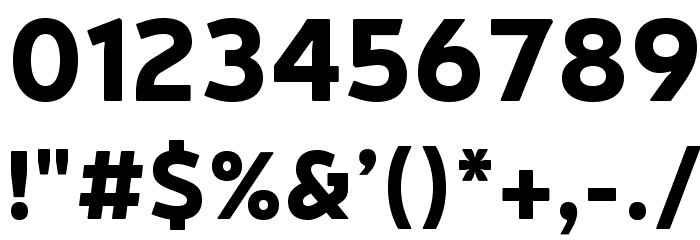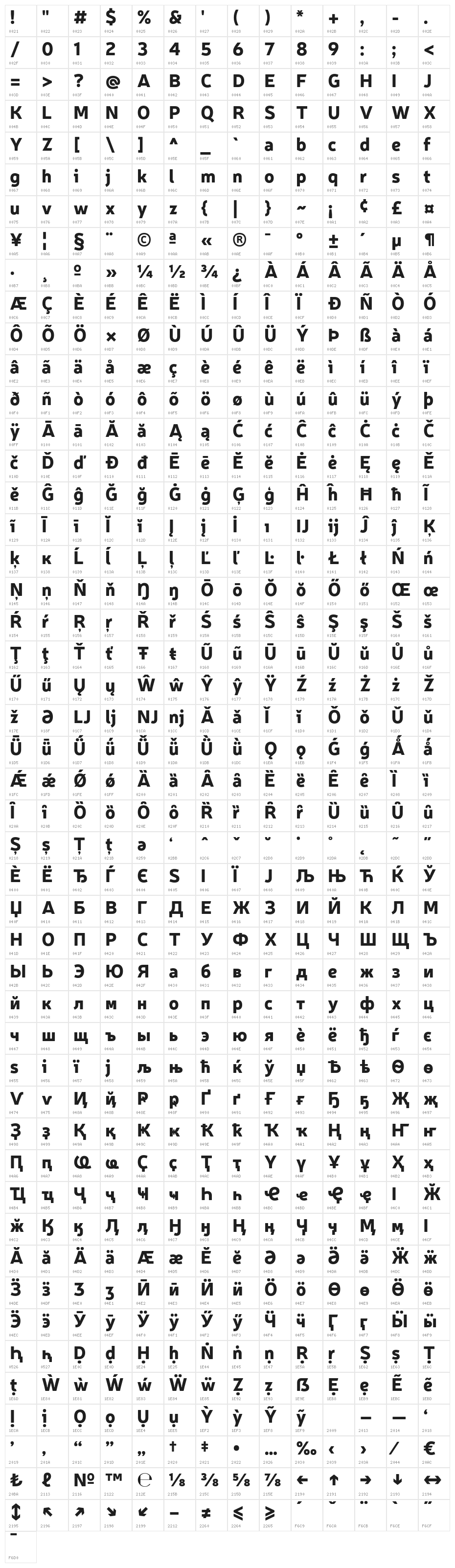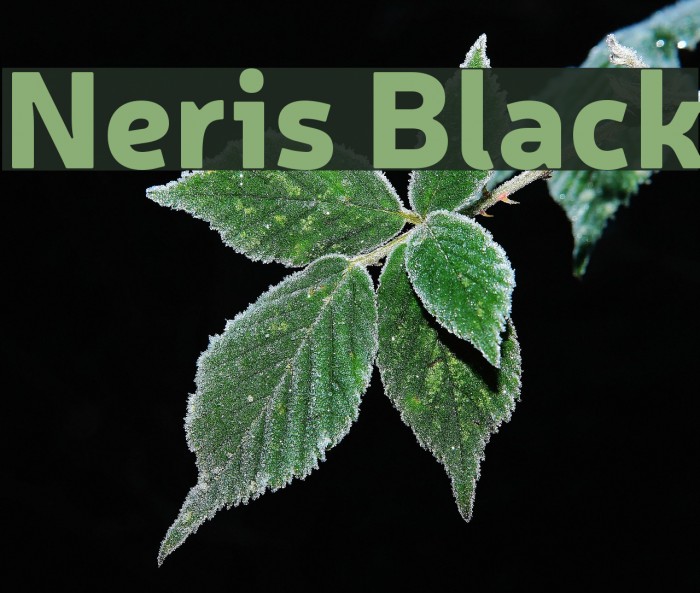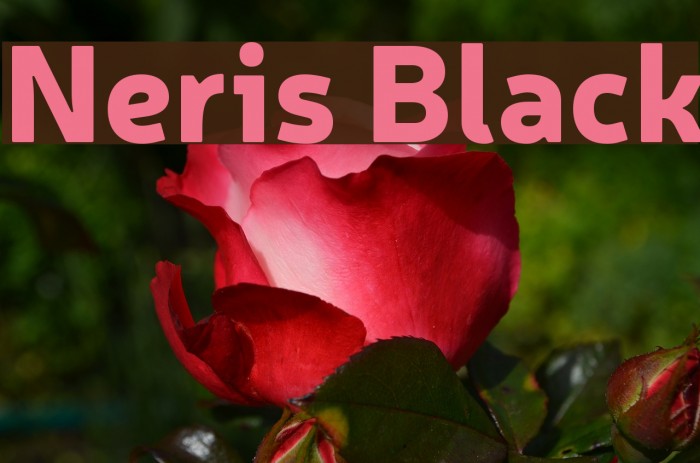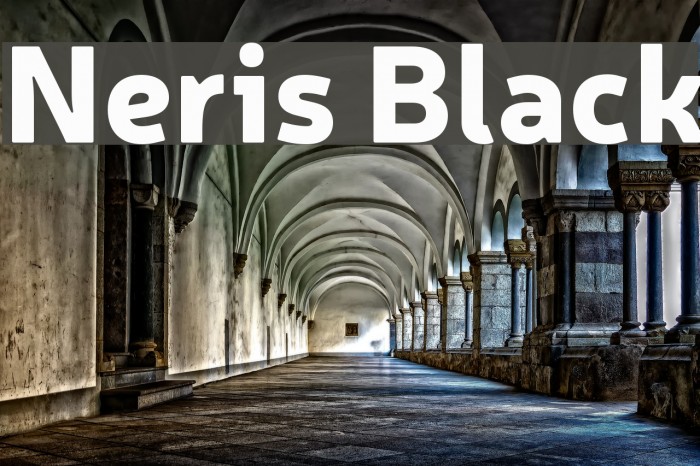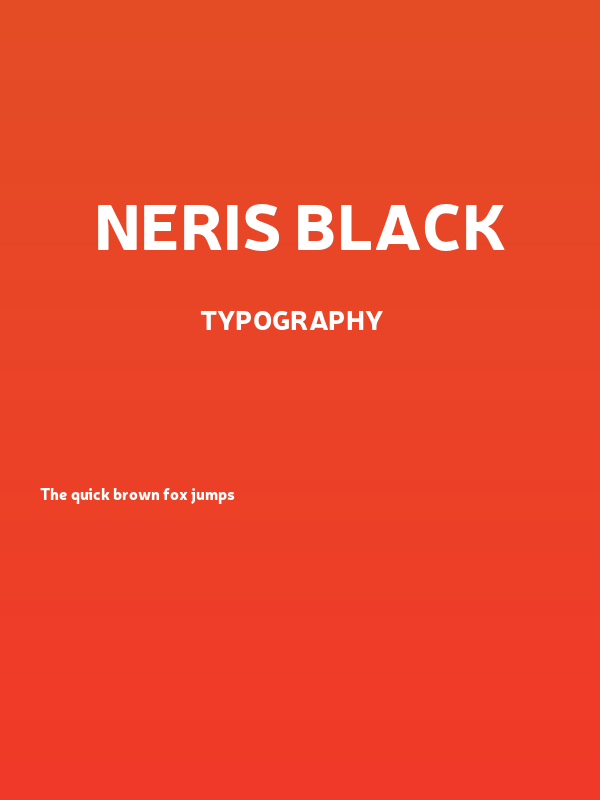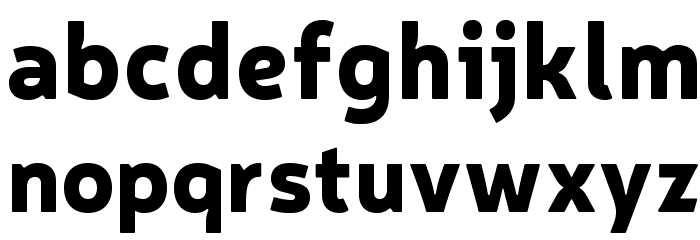
Neris Black Font
Neris Black Description
This font features bold, clean lines with a modern aesthetic, making it highly legible and impactful. The characters are uniformly thick, providing a strong presence on the page. Its geometric shapes and consistent stroke widths contribute to a contemporary look, while the rounded edges soften the overall appearance, adding a touch of friendliness. The font maintains a balanced proportion, ensuring readability across various sizes. Its versatility makes it suitable for both digital and print media, offering a professional yet approachable feel.
| Proposed Projects | Ideal for branding, headlines, posters, and digital media where a strong, modern presence is desired. |